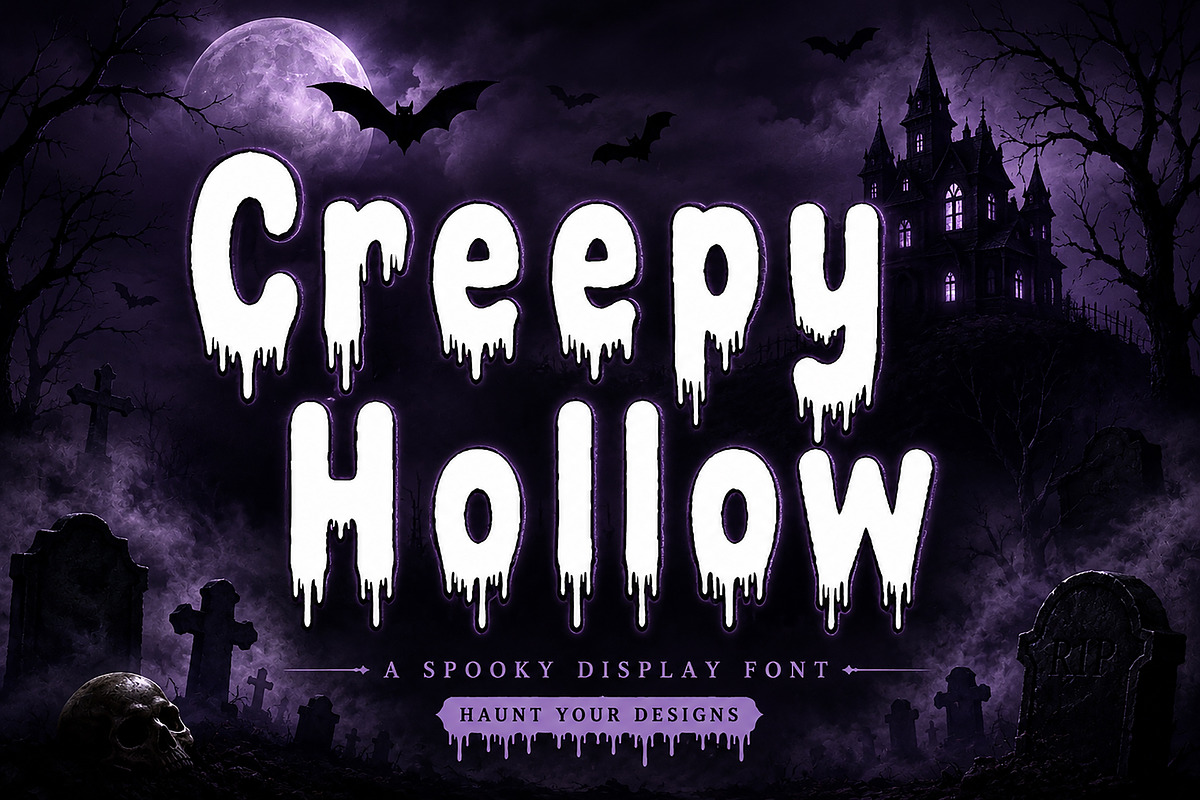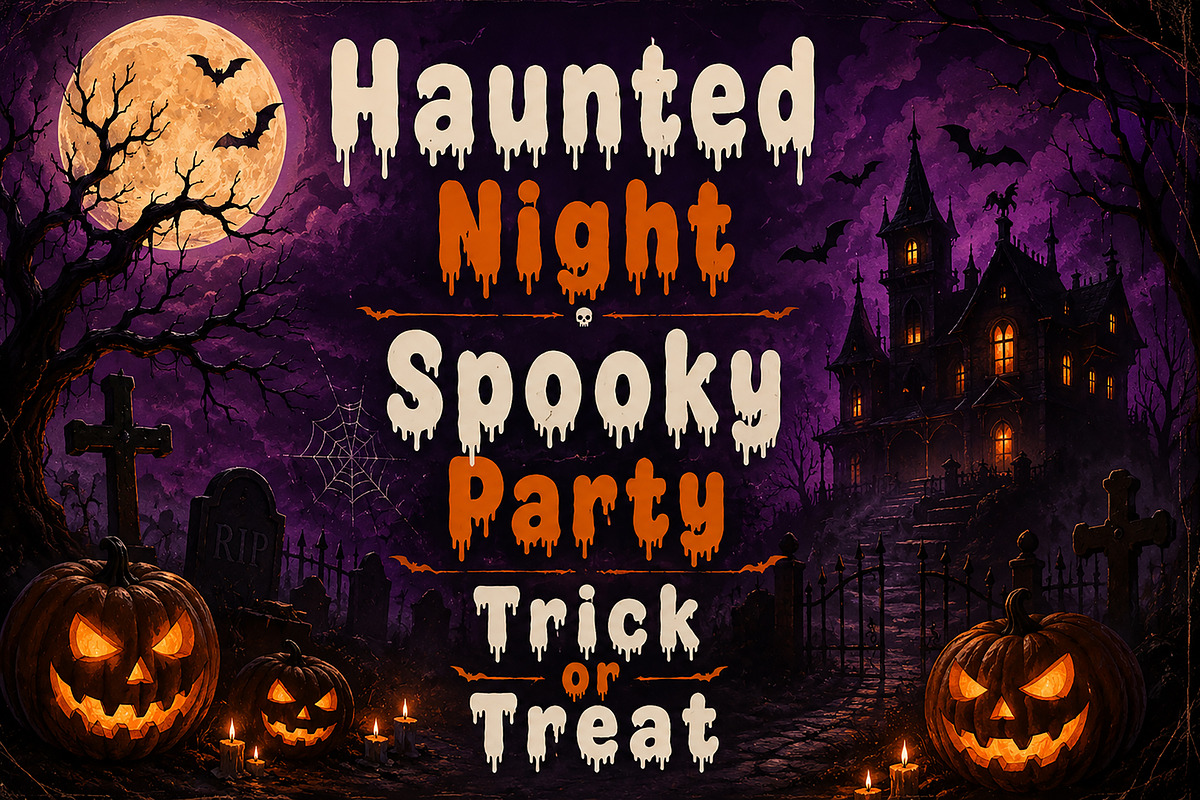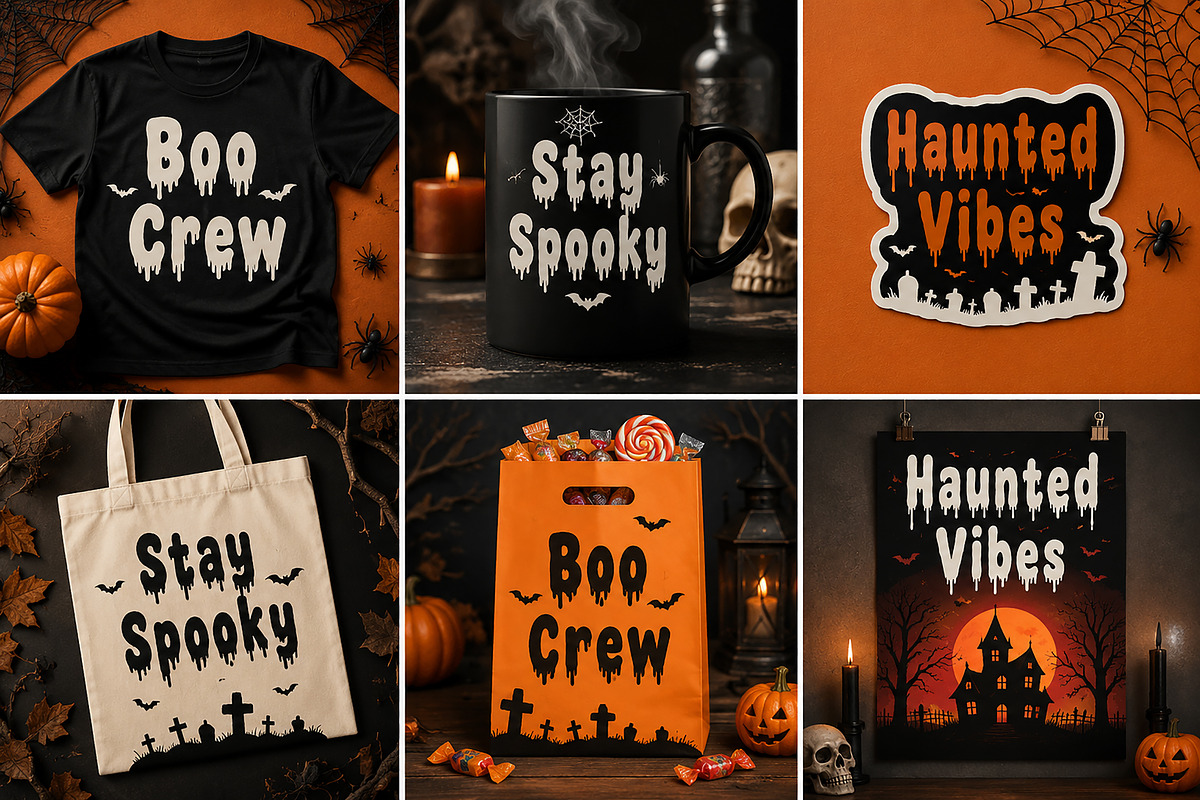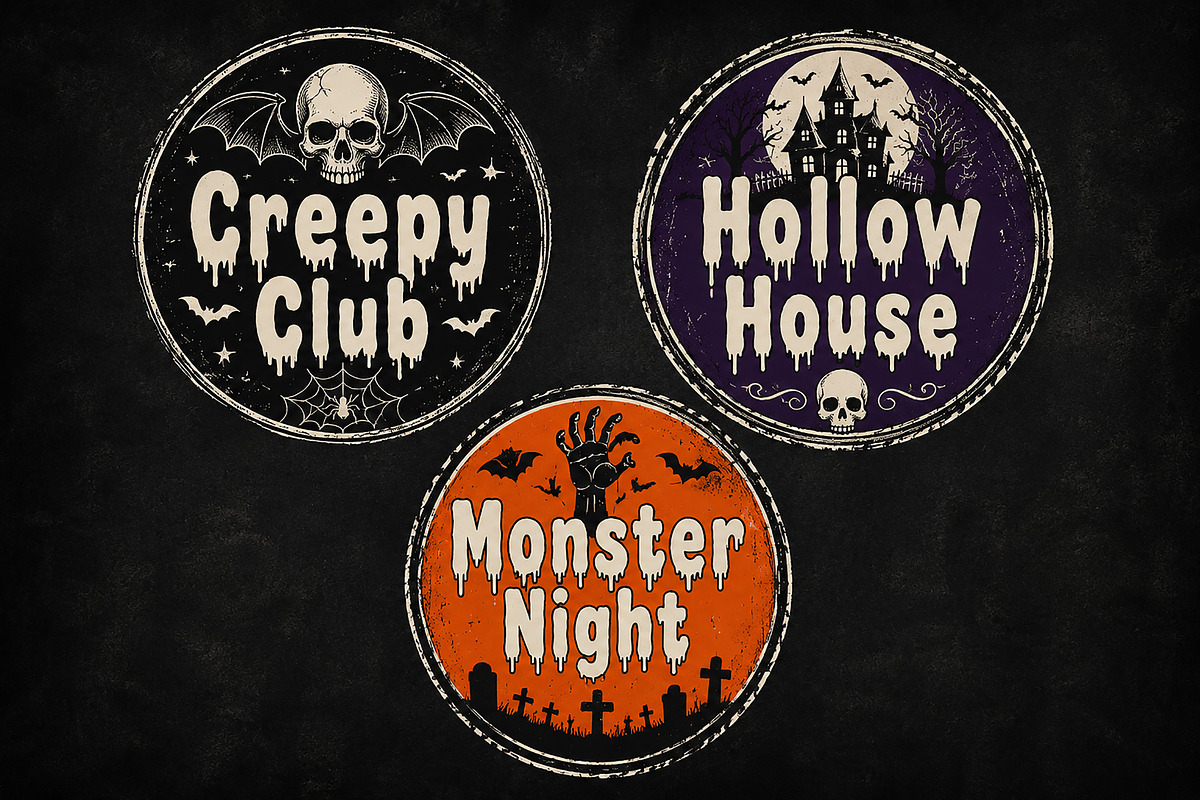
Creepy Hollow
Creepy Hollow – Horror Halloween Display Font
Creepy Hollow is a spooky horror display font inspired by haunted houses, Halloween nights, ghost stories, and vintage horror posters. Featuring irregular hand-drawn letterforms, eerie curves, and a creepy atmosphere, this font is perfect for creating eye-catching designs with a dark and mysterious feel.
Whether you're designing Halloween party invitations, horror movie posters, spooky branding, haunted attraction flyers, social media graphics, stickers, t-shirts, packaging, or Cricut projects, Creepy Hollow will add the perfect frightening touch to your work.
Its bold and playful horror style makes it ideal for both professional and personal creative projects that need a spooky, fun, and memorable look.
Halloween Party Invitations
Horror Movie Posters
Haunted House Flyers
Horror-Themed Branding
T-Shirt Designs
Stickers & Labels
Cricut & Craft Projects
Seasonal Merchandise
Halloween Packaging
Scary Event Promotions
Uppercase Letters
Lowercase Letters
Bring your spooky ideas to life with Creepy Hollow — the perfect font for all your Halloween and horror-themed creations!